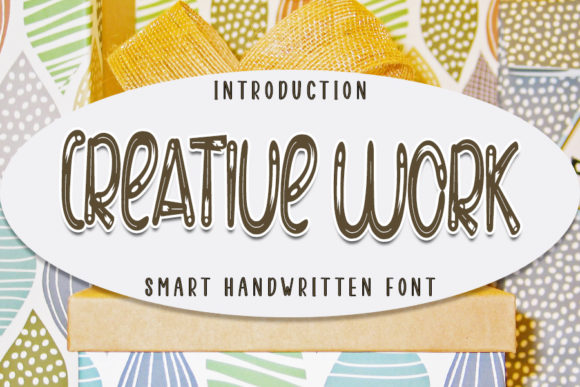
Introducing Creative Work: The Ultimate Display Font for Creative Projects
Are you a designer, crafty enthusiast, or simply someone who loves to add a personal touch to their projects? Look no further! We’re excited to introduce Creative Work, a simple yet bouncy display font that’s perfect for a wide range of creative applications. From logos and wedding invitations to headings, t-shirts, and more, this versatile font is sure to become a staple in your design arsenal.
What is Creative Work Font?
Creative Work is a carefully crafted display font that’s designed to add a touch of playfulness and creativity to your projects. Its unique bouncy style makes it perfect for designs that require a bit of personality and flair. Whether you’re working on a logo, invitation, or signage, this font is sure to make your design stand out from the crowd.
Key Features of Creative Work Font
- Simple yet bouncy design: The Creative Work font features a simple yet bouncy design that’s perfect for adding a touch of personality to your projects.
- Versatile: This font can be used for a wide range of creative applications, including logos, wedding invitations, headings, t-shirts, letterhead, signage, labels, news, posters, badges, and more.
- Easy to read: Despite its playful design, the Creative Work font is easy to read, making it perfect for both digital and print applications.
- High-quality design: The font is carefully crafted with attention to detail, ensuring a high-quality design that will elevate your projects.
Use Cases for Creative Work Font
The Creative Work font is incredibly versatile, making it perfect for a wide range of creative projects. Here are some use cases to get you started:
- Logos: Create a unique and memorable logo for your business or brand with the Creative Work font.
- Wedding Invitations: Add a touch of playfulness and romance to your wedding invitations with this beautiful font.
- Headings: Use the Creative Work font to create eye-catching headings for your blog posts, articles, or social media graphics.
- T-shirts: Design custom t-shirts with the Creative Work font for a unique and stylish look.
- Signage: Create eye-catching signage for your business or event with this bold and playful font.
Why Choose Creative Work Font?
With so many fonts available, why choose Creative Work? Here are a few reasons why this font stands out:
- Unique design: The Creative Work font features a unique bouncy design that’s sure to make your projects stand out.
- High-quality: The font is carefully crafted with attention to detail, ensuring a high-quality design that will elevate your projects.
- Versatile: The Creative Work font can be used for a wide range of creative applications, making it a great addition to your design arsenal.
In conclusion, the Creative Work font is a versatile and playful display font that’s perfect for a wide range of creative projects. Its unique bouncy design makes it stand out from the crowd, while its ease of use and high-quality design make it a great choice for designers and crafters of all levels. Whether you’re working on a logo, invitation, or signage, this font is sure to add a touch of personality and creativity to your projects.